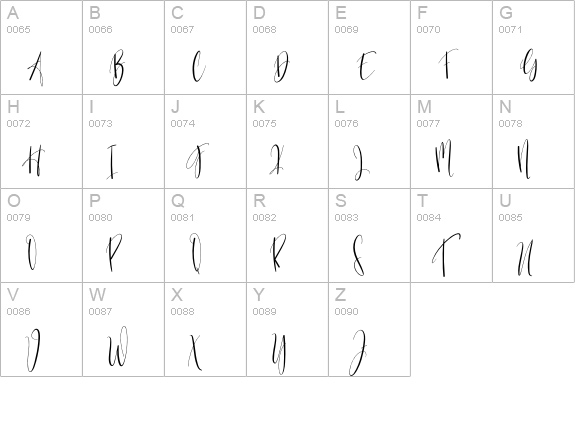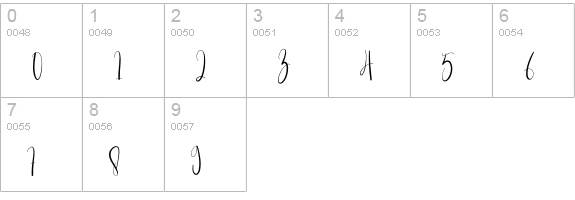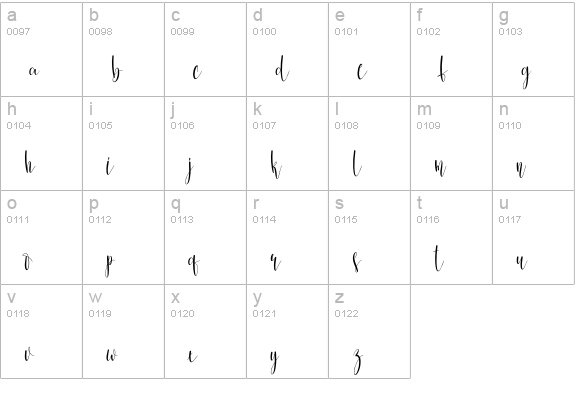
Amsterdam is a free for personal use font in the Script > Handwritten category, designed by scratchones. It has been downloaded 15 times and is available for Windows, Mac and Linux.
Amsterdam font is a unique and elegant typeface that exudes a sense of sophistication and modernity. Its sleek lines and stylish curves make it perfect for a variety of design projects, from branding to editorial design. The Amsterdam font is versatile and can be used for both headings and body text, adding a touch of class to any design.